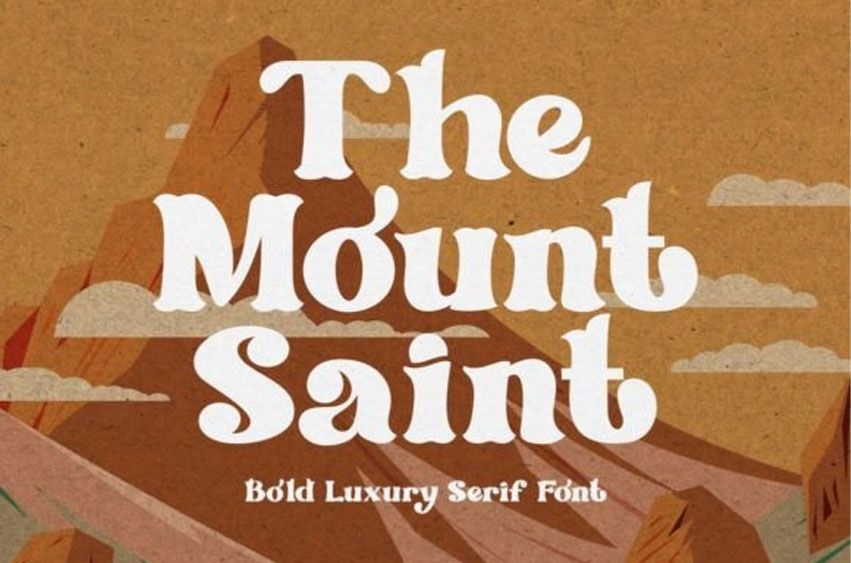
The Mount Saint Font
The Mount Saint Font Bold Luxury Serif Font. The Mount Saint is a bold vintage-style serif font with strong character and soft features. The Mount Saint is equipped with Swash, Stylistic, and Titling alternates as well as with Standard and Discretionary Ligatures.
And this font ** (The Mount Saint) ** is a stylish font that is both retro and bold. Its thick curves give a 70s groovy vibe with the serifs bringing it slightly back to traditional. It comes with alternatives and ligatures and helps to create stunning logos, quotes, posts, and blog posts. branding projects, magazine imagery, wedding invitations, and much more.